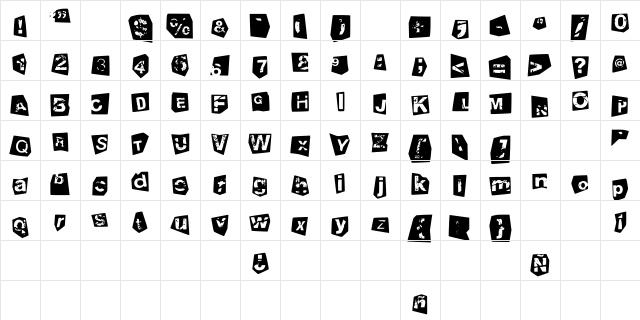
tengo a tus hijos negativo Medium
Design Context for tengo a tus hijos negativo
tengo a tus hijos negativo is a composed and adaptable typeface that performs quietly and consistently across a wide range of design contexts.